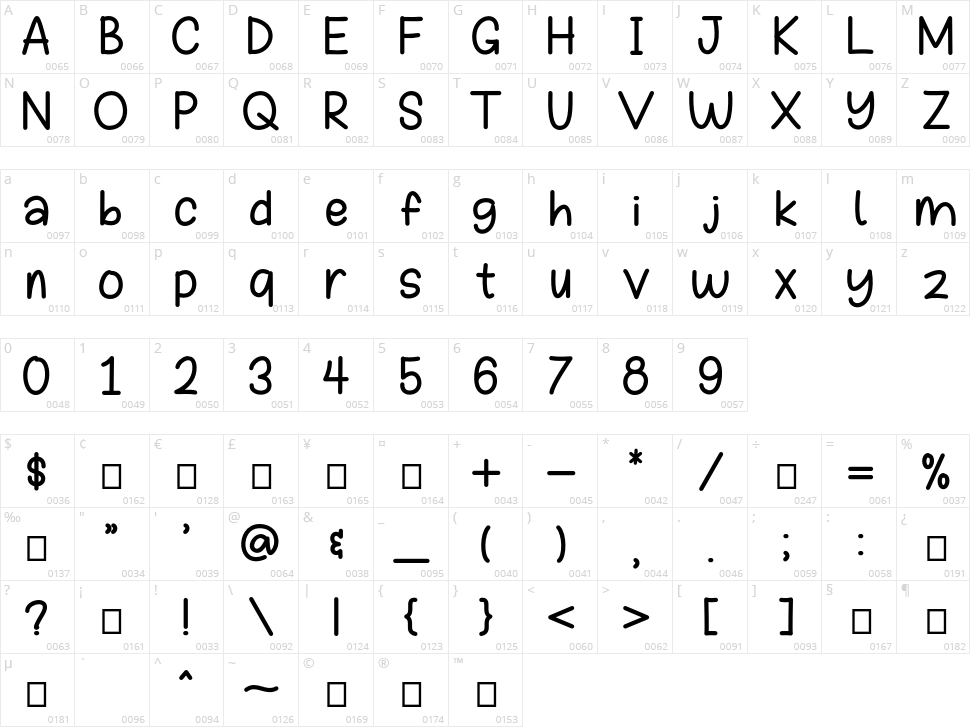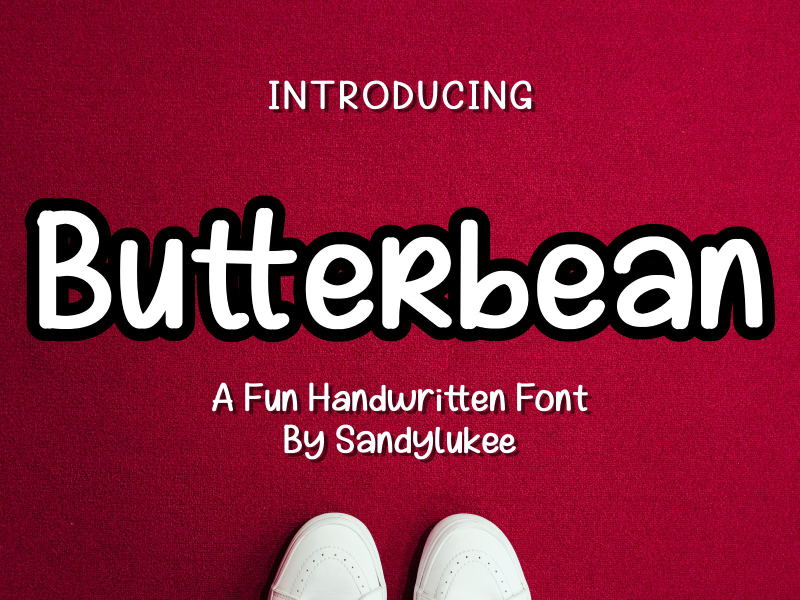
Butterbean
Note of the author Introducing
Butterbean - A Funny Handwritten Font by Sandylukee
It's a great font for your any design especially for fun, kids, young, colorfull theme purpose.
I also add some ligatures and alternative characters so it'll make your design more fresh.